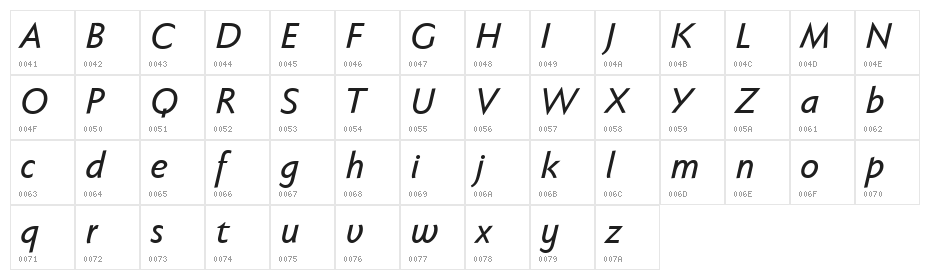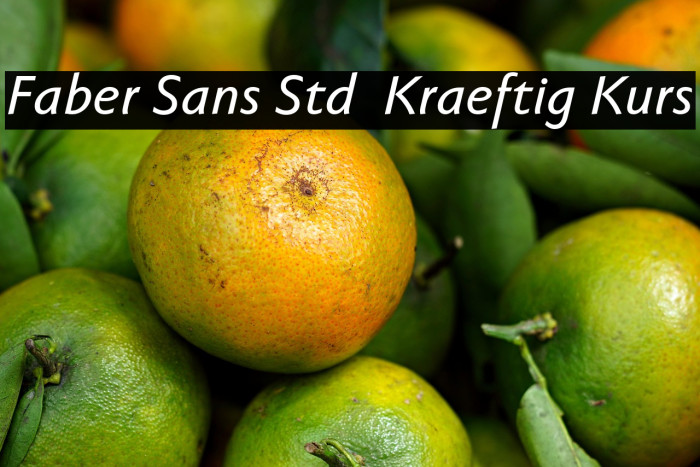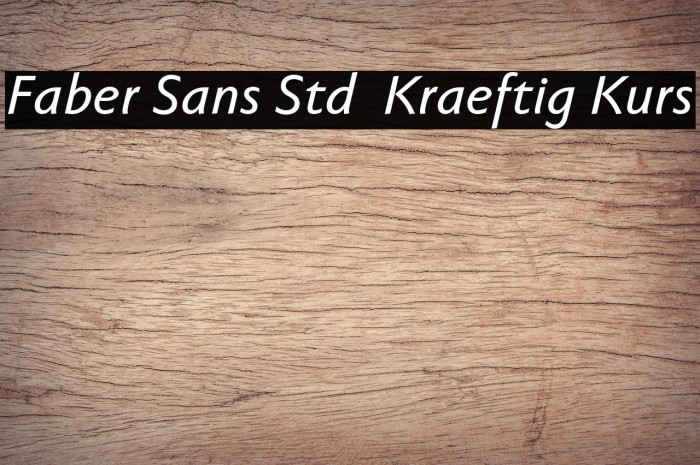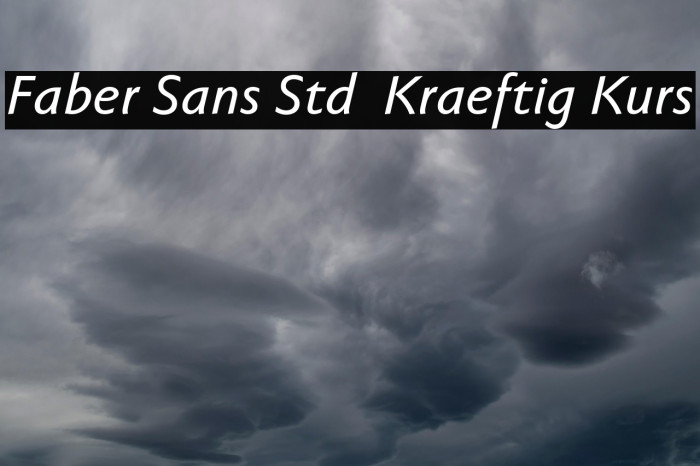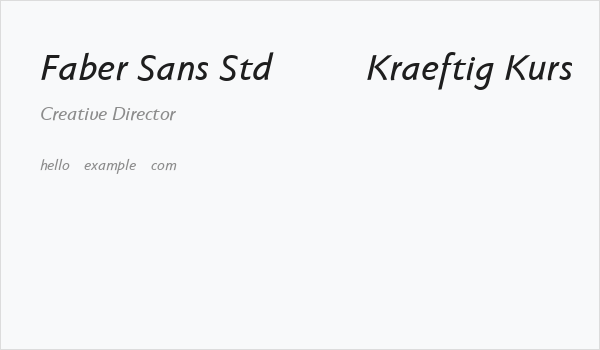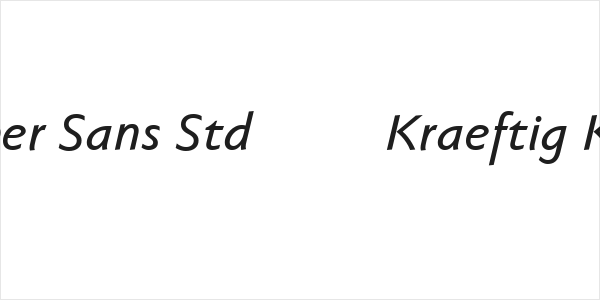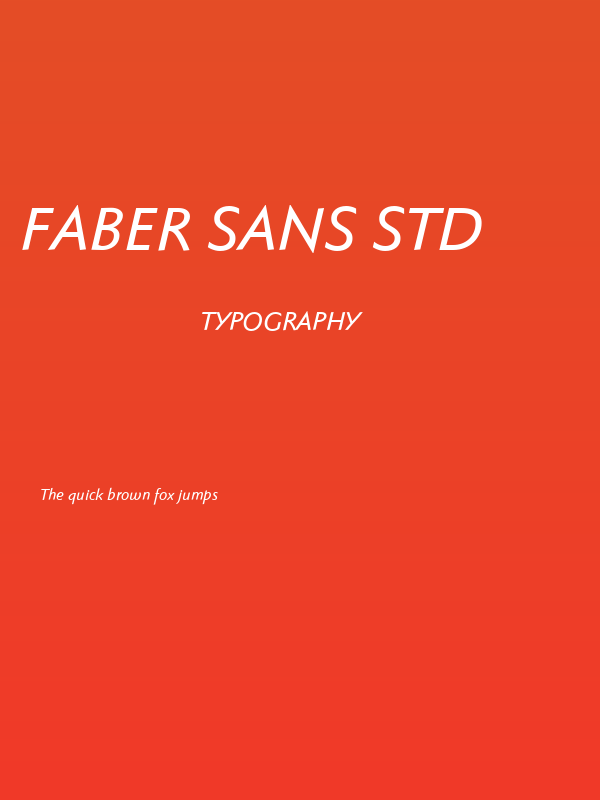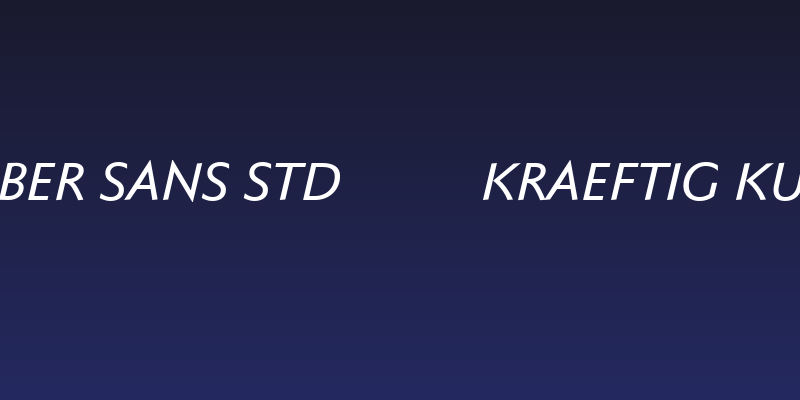
Faber Sans Std 66 Kraeftig Kurs Font
Faber Sans Std 66 Kraeftig Kurs Description
This font exhibits a clean and modern sans-serif style with a slight italic slant, giving it a dynamic and forward-moving appearance. The characters are well-proportioned, maintaining a consistent weight throughout, which enhances readability. The uppercase letters are bold and assertive, while the lowercase letters maintain a softer, more approachable feel. The overall design is sleek and professional, making it suitable for a variety of applications. The spacing between characters is normal, ensuring clarity and legibility. This font is versatile, suitable for both digital and print media.
| Proposed Projects | Ideal for branding, advertising, editorial design, and web interfaces. |